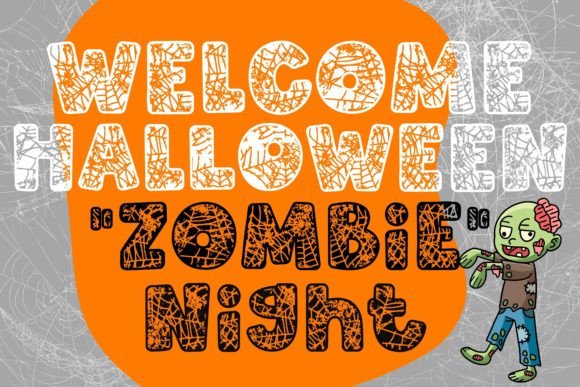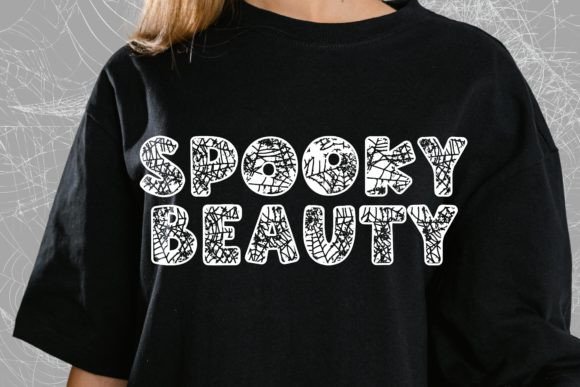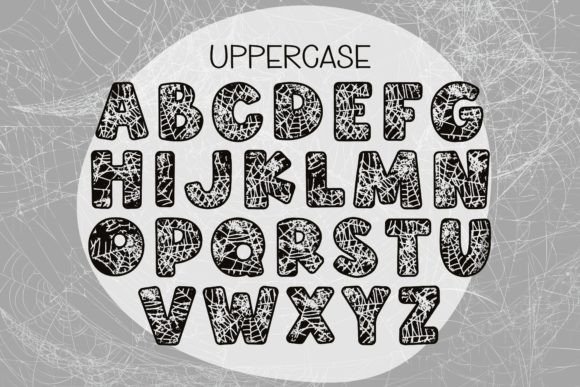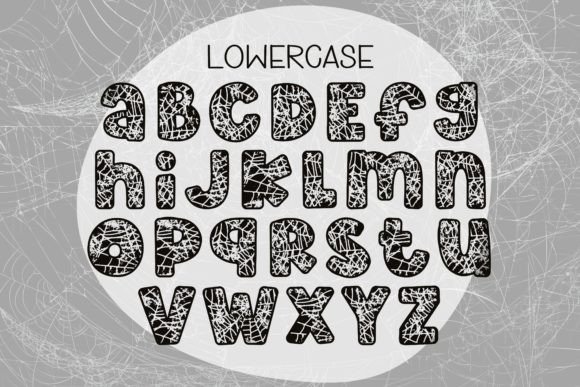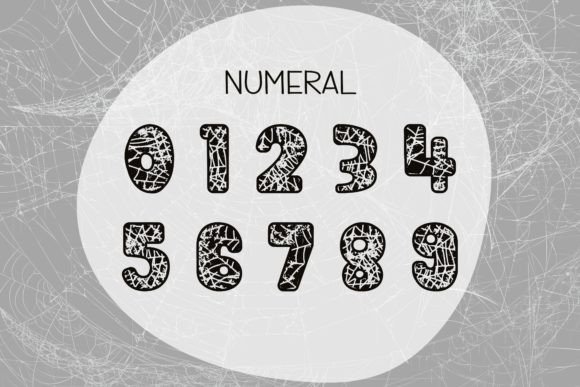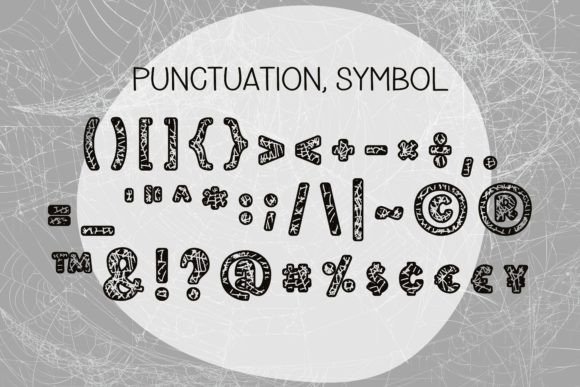
The Perfect Font for Your Next Spooky Creation
As a designer, you’ve probably found yourself in a moment of creative block, staring at a blank canvas, trying to think of the perfect font to bring your project to life. You’ve scrolled through font libraries, searched for inspiration, and even browsed through design communities, but nothing seems to fit the vibe you’re going for.
That’s where the Grunge Cobweb Font comes in – a unique and adorable decorative font style that’s perfect for adding a touch of spookiness to your designs. This font is designed to be versatile and can be used in a variety of projects, from back to school and Halloween party decorations to children’s educational materials and more.
The Grunge Cobweb Font is a valuable addition to any designer’s toolkit, offering a distinctive and eye-catching way to add personality to your designs. With its spooky yet adorable aesthetic, this font is sure to bring a smile to your clients’ faces and make their projects stand out from the crowd.
Grunge Cobweb Font Key Features
- Font Style: Grunge, Distressed, and Vintage-inspired, perfect for creating a unique and edgy look.
- Unique Characteristics: Features a distressed and worn look with visible texture and subtle imperfections, giving it a genuine, aged feel.
- Legibility: Despite its distressed appearance, the font remains highly legible, making it suitable for body text, headings, and titles.
Grunge Cobweb Font Review
I recently had the chance to play around with the Grunge Cobweb Font, and I must say it’s a mixed bag. On the plus side, the font’s unique texture and distressed look can really add a cool, edgy vibe to any design project ✨. The subtle web-like patterns and worn edges give it a sense of character that’s perfect for music-inspired or vintage-themed projects.
However, there are a few limitations to keep in mind ⚠️. First, the font can be quite difficult to read, especially in smaller sizes. The texture and distortion can make it hard to decipher certain letters and words, which might limit its usability in certain contexts. Additionally, the font’s design can feel a bit overused, and it might not be the best choice for projects that require a more subtle or minimalist approach.
Here are a few things to consider when using the Grunge Cobweb Font:
- Use it sparingly to avoid overwhelming the design.
- Pair it with simpler fonts to create a balanced look.
- Test it in different sizes and resolutions to ensure readability.
Overall, I’d say the Grunge Cobweb Font is a solid choice for designers who want to add a bit of grit and attitude to their projects. Just be mindful of its limitations and use it thoughtfully to get the best results.
- Use it in combination with distressed textures or backgrounds to create a gritty, industrial look.
- Experiment with different font sizes and colors to create visual hierarchy and emphasis.
- Use it to add a touch of edginess to your designs, such as in music or fashion branding.
Creative Projects Using Grunge Cobweb Font
Project 1: Dark Academia Invitations
Project 2: Cyberpunk Graffiti
Project 3: Steampunk Journal Covers